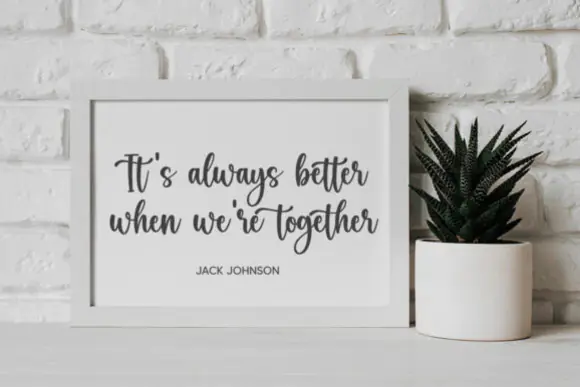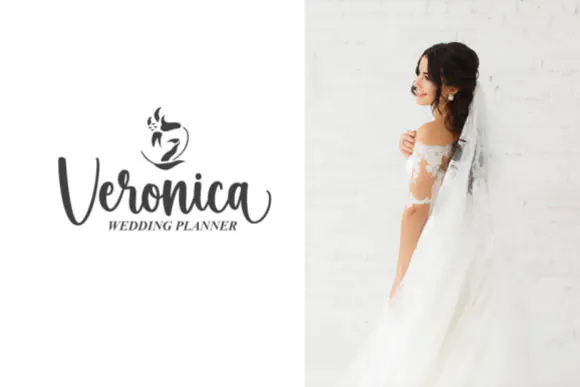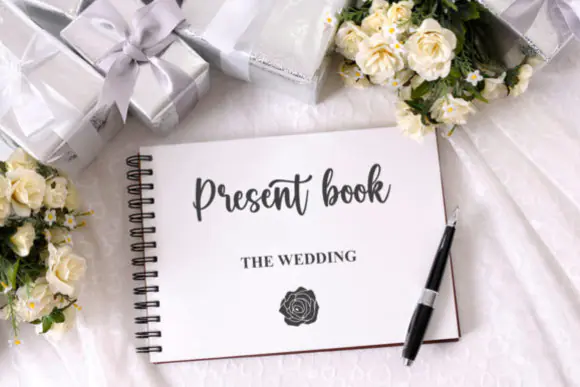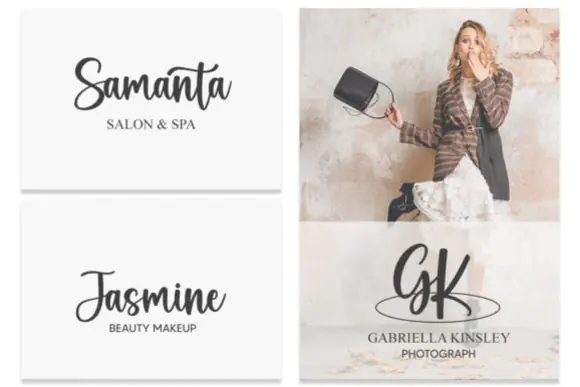
Create warm, beautiful, and eye-catching designs with Better Together Font, a lovely handwritten font with a timeless and charming style. This font is perfect for projects that need a soft, personal, and handcrafted touch.
Better Together Font works beautifully for logos, branding, quote designs, greeting cards, wedding stationery, social media graphics, product packaging, stickers, mugs, t-shirts, aprons, wall art, labels, invitations, and craft projects. Every letter has a unique and beautiful touch, helping your designs feel more alive, expressive, and memorable.
This font is also a great choice for Cricut and heat transfer vinyl projects, especially for personalized aprons, shirts, tote bags, mugs, and handmade gifts. Its handwritten appearance makes it suitable for small business branding, romantic designs, lifestyle products, and creative digital artwork.
Better Together Font is a beautiful choice for designers, crafters, small business owners, and digital product sellers who want to create elegant, heartfelt, and stylish designs with a natural handwritten feel.